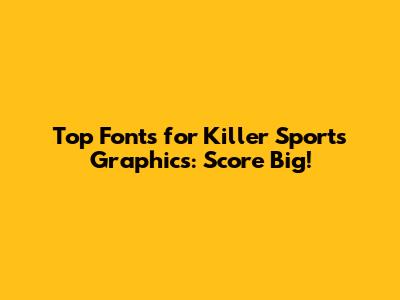
- Contrast is Key: Look for fonts that offer a strong contrast in terms of weight, style, and character. For example, pairing a bold sans-serif font with a lighter serif font can create a dynamic and balanced look.
- Consider Hierarchy: Use different fonts to establish a clear visual hierarchy. Use a bold and attention-grabbing font for headlines, and a more readable font for body text.
- Limit Your Choices: Avoid using too many fonts in a single design. Stick to a maximum of two or three fonts to maintain a cohesive and professional look.
- Test and Refine: Experiment with different font combinations and see what works best for your specific design. Don't be afraid to try new things and refine your choices until you achieve the desired result.
Choosing the right font for your sports graphics can be a game-changer, guys. Seriously! Whether you're designing a team logo, creating eye-catching posters, or crafting engaging social media content, the font you select plays a crucial role in conveying the right message and grabbing attention. A strong, bold, and appropriate font can elevate your designs from amateur to professional, making your team or brand stand out from the competition. So, let's dive into some of the best fonts that will help you score big in the world of sports graphics!
Why Font Choice Matters in Sports Graphics
Think about the last time you saw an awesome sports logo or poster. What was it that made it so appealing? Chances are, the font played a significant part. In the realm of sports graphics, the font isn't just about readability; it's about conveying the energy, passion, and spirit of the game. A well-chosen font can evoke feelings of excitement, determination, and team pride, connecting with fans on an emotional level. It helps to create a visual identity that resonates with the target audience. On the flip side, a poorly chosen font can make your designs look unprofessional, uninspired, or even confusing. Imagine a tough and aggressive football team using a whimsical, script-like font – it just wouldn't work, right? This mismatch can dilute your message and fail to capture the essence of the sport or team. Therefore, it's super important to carefully consider the personality and message you want to convey when selecting fonts for your sports graphics. Consider the overall aesthetic, target audience, and the specific sport when choosing fonts. A font that works well for a basketball team might not be suitable for a baseball team. Understand the nuances of different font styles, such as serif, sans-serif, script, and display fonts, and how they can contribute to the desired mood and tone. By taking the time to select the right font, you can make your sports graphics more effective, memorable, and visually appealing.
Top Font Categories for Sports Graphics
When it comes to sports graphics, certain font categories tend to shine. These categories offer a range of styles that capture the essence of the sport. These types of fonts work because they’re designed with impact in mind. Let's explore some of the most popular and effective font categories, providing examples and explaining why they work so well:
Bold Sans-Serif Fonts
Bold sans-serif fonts are a go-to choice for sports graphics due to their clean, modern, and highly legible appearance. They convey a sense of strength, power, and confidence, making them ideal for representing teams and athletes. One standout example is Bebas Neue, a widely popular sans-serif font known for its tall, narrow characters and impactful presence. Its clean lines and bold weight make it perfect for headlines, logos, and posters. Another excellent option is Montserrat, a versatile sans-serif font that offers a range of weights and styles. Its geometric design and clear readability make it suitable for various applications, from website headers to print materials. Impact is another classic choice, living up to its name with its ultra-bold weight and condensed form. It's great for grabbing attention and making a statement. When using bold sans-serif fonts, consider the overall design and ensure the font complements the other elements. Balance the boldness with sufficient spacing and contrast to maintain readability. These fonts work particularly well in situations where you need to convey information quickly and efficiently, such as scoreboards, team rosters, and promotional banners. The clean, uncluttered appearance ensures that the message is easily understood, even at a glance. Additionally, bold sans-serif fonts can be easily paired with other font styles to create a dynamic and visually appealing design. Use them for headlines and subheadings, and complement them with a lighter, more readable font for body text.
Strong Slab-Serif Fonts
Slab-serif fonts, characterized by their thick, block-like serifs, exude a sense of robustness, authority, and tradition. They're particularly well-suited for sports graphics that aim to convey a sense of heritage and stability. One notable example is Roboto Slab, a modern slab-serif font that combines clean lines with a sturdy structure. It's highly legible and versatile, making it suitable for both headlines and body text. Another excellent option is Arvo, a geometric slab-serif font with a slightly vintage feel. Its distinct letterforms and strong presence make it a great choice for logos, posters, and branding materials. ChunkFive Ex is another popular slab-serif font known for its extra-bold weight and impactful appearance. It's perfect for creating eye-catching headlines and making a bold statement. When using slab-serif fonts, pay attention to the spacing and kerning to ensure optimal readability. The thick serifs can sometimes create a cluttered appearance if not properly spaced. Also, consider the overall tone and style of your design. Slab-serif fonts can range from modern and industrial to vintage and classic, so choose one that aligns with the desired aesthetic. These fonts work particularly well for sports teams with a long history or a strong sense of tradition. They can also be used to convey a sense of reliability and trust, making them ideal for branding materials and promotional campaigns. Combine them with sans-serif fonts to create a visually balanced and dynamic design. Use the slab-serif font for headlines and key messages, and complement it with a clean, readable sans-serif font for supporting text.
Dynamic Display Fonts
Dynamic display fonts are designed to grab attention and make a statement. They often feature unique and stylized letterforms that convey a sense of energy, excitement, and creativity. One standout example is Luckiest Guy, a playful and informal display font with a hand-drawn feel. Its whimsical characters and bold weight make it perfect for creating fun and engaging sports graphics. Another excellent option is Bangers, a comic book-inspired display font with a dynamic and energetic appearance. Its slanted letterforms and bold outlines convey a sense of speed and action. Lemon Milk is another versatile display font that comes in various styles and weights. Its clean lines and modern aesthetic make it suitable for a wide range of applications. When using dynamic display fonts, it's important to use them sparingly and strategically. Overusing them can create a cluttered and overwhelming design. Instead, focus on using them for headlines, logos, and other key elements that you want to stand out. Consider the overall tone and style of your design. Dynamic display fonts can range from playful and informal to bold and aggressive, so choose one that aligns with the desired message. These fonts work particularly well for sports teams that want to project a fun, youthful, and energetic image. They can also be used to create eye-catching promotional materials and social media graphics. Combine them with simpler, more readable fonts to ensure that the overall design is balanced and effective. Use the display font for headlines and key messages, and complement it with a clean, sans-serif font for supporting text.
Script and Brush Fonts
Script and brush fonts can add a touch of personality, dynamism, and artistry to your sports graphics. They often mimic the look of handwriting or brushstrokes, conveying a sense of movement, energy, and authenticity. One notable example is Anton, while technically a sans-serif it has a visually fast and dynamic quality that suits sports graphics well, its condensed and bold nature can give a feeling of speed and power. Another great option is Bebas Neue, its clean lines and tall characters giving it a sporty edge. Permanent Marker gives a handwritten feel that can add an element of raw energy. When using script and brush fonts, it's important to ensure they are legible and don't clash with other design elements. Use them sparingly, focusing on adding flair and personality rather than conveying large amounts of text. Consider the specific sport and team you're designing for. A rough, energetic brush font might be perfect for an extreme sports team, while a more elegant script font could suit a classic sports club. These fonts can be particularly effective for logos, banners, and social media graphics where you want to make a strong visual statement. Pair them with clean, sans-serif fonts for body text to maintain readability.